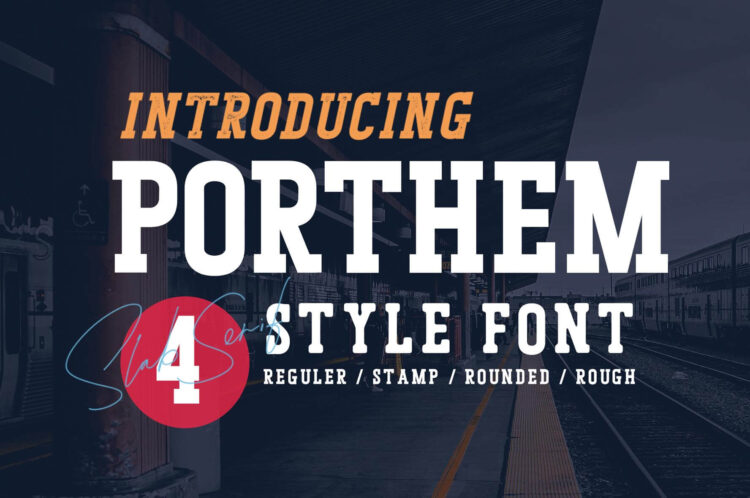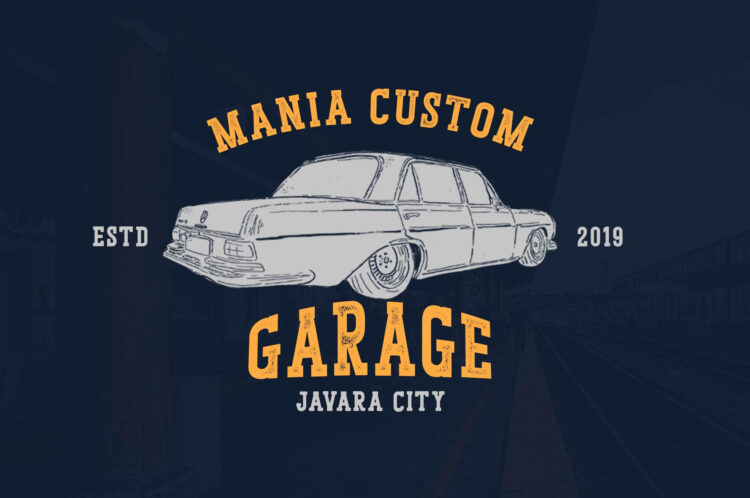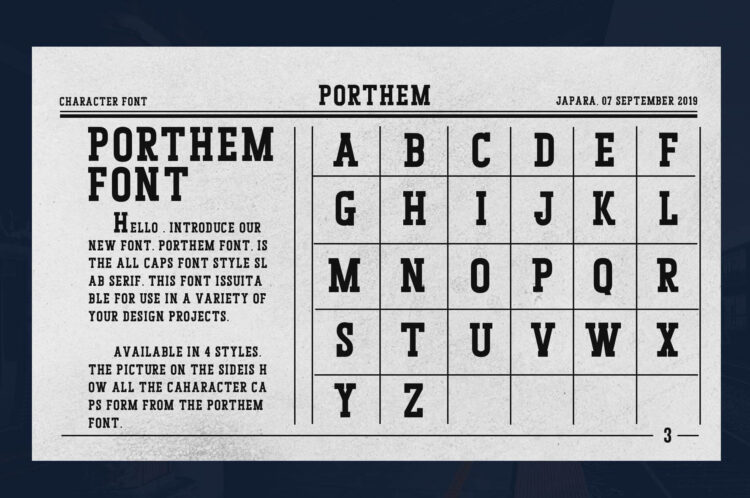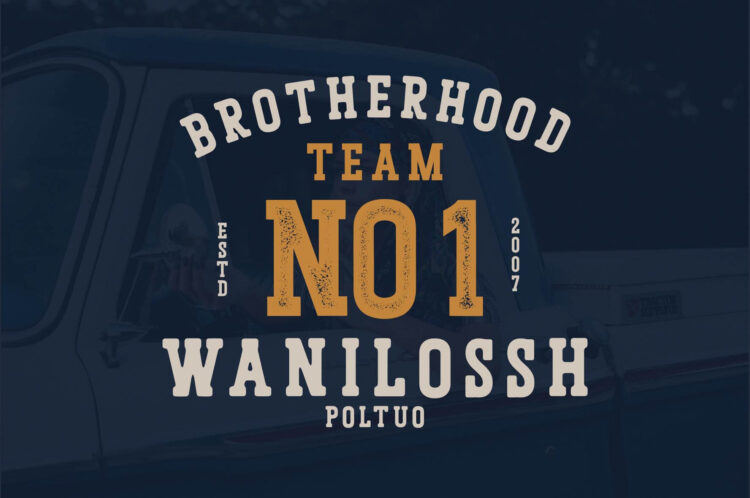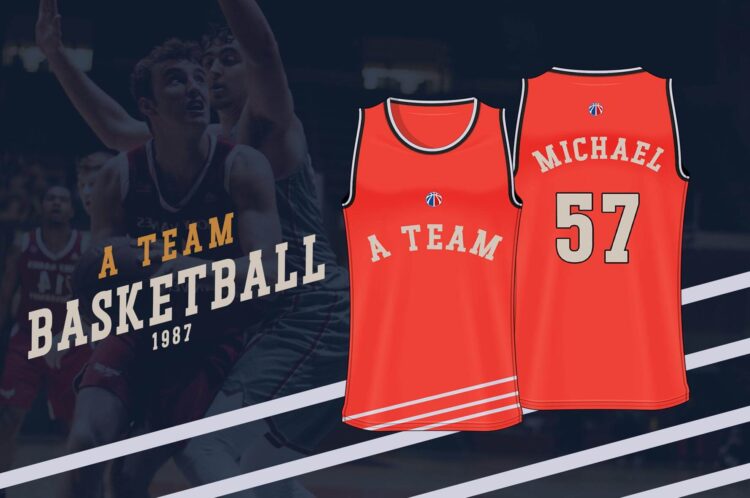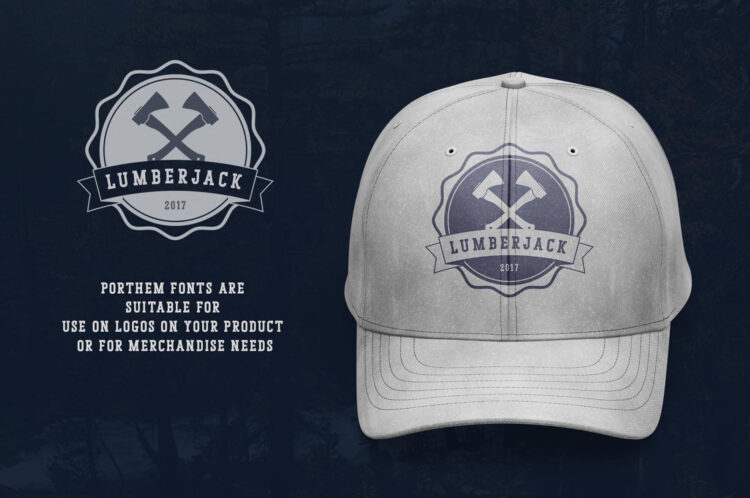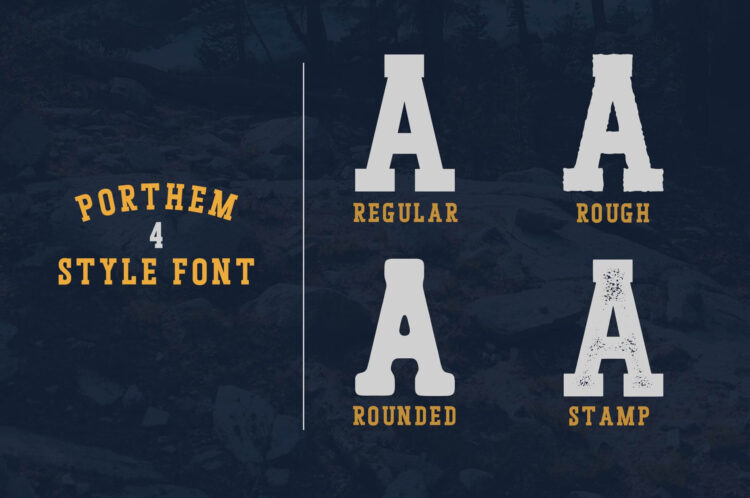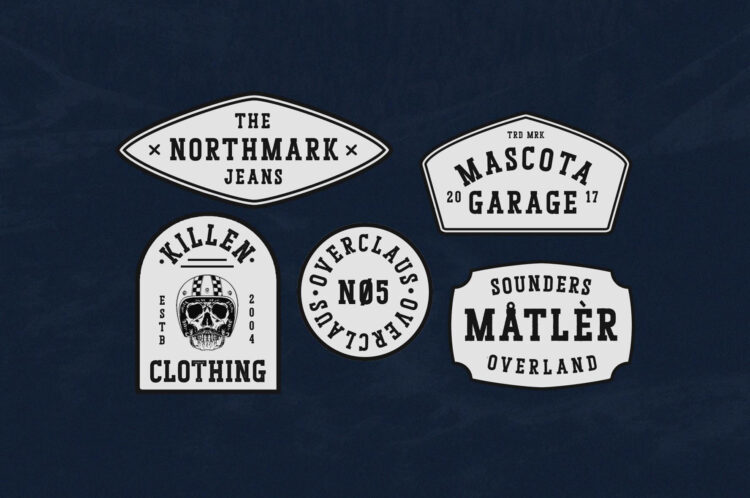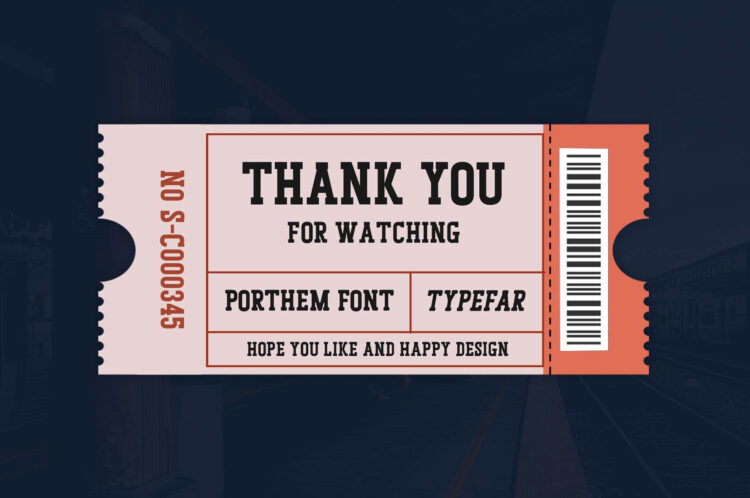
Porthem
Porthem Rounded
Porthem Rough
Porthem Stamp
You’re looking for a nice font, looks dashing for your design? we recommend the this font, Porthem Font. All caps slab serif fonts suitable for your design such as used for headers, for sports jersey, for logo badges, for vintage logos, for merchandise.
Porthem fonts come in 4 styles, regular, rough, rounded and stamp.